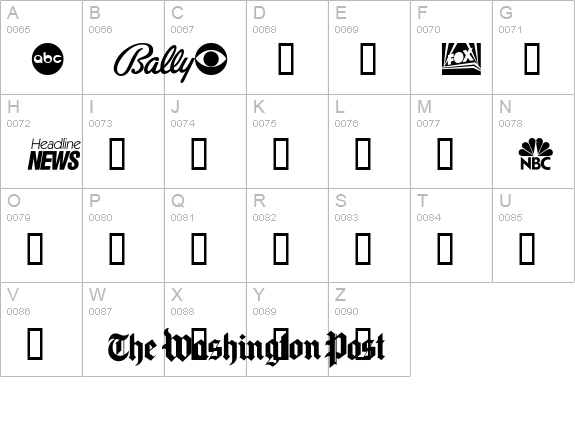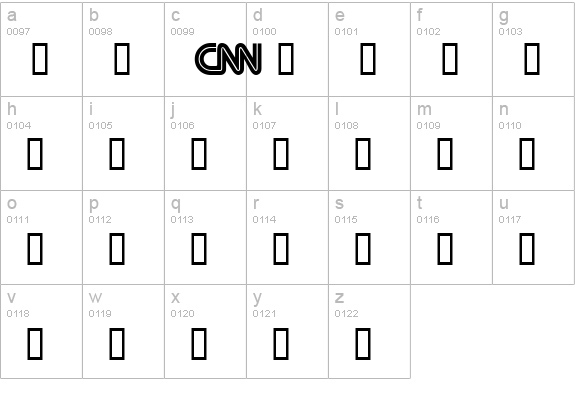
Introducing the Logos Entertainment font - a sleek and modern typeface designed to add a touch of sophistication to your projects. This versatile font is perfect for creating eye-catching logos, branding materials, and promotional materials for the entertainment industry. With its clean lines and bold design, Logos Entertainment font exudes a sense of style and professionalism. What's more, Logos Entertainment font is available for free download at FontsMarket.com, making it easily accessible for designers and creatives looking to enhance their work with a high-quality font. Whether you're working on a new logo design for a film production company, a music label, or a gaming studio, Logos Entertainment font is sure to make a lasting impression. Elevate your designs with this stunning font today!